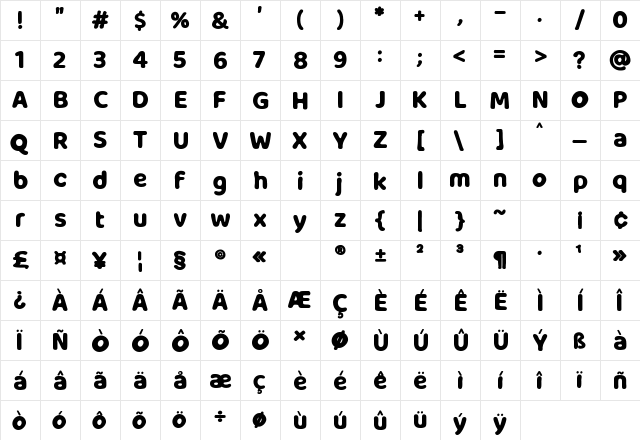
Milky Nice Regular
| Designer | Welianto |
Design Context for Milky Nice Typeface
Milky Nice is a composed and adaptable typeface that performs quietly and consistently across a wide range of design contexts.